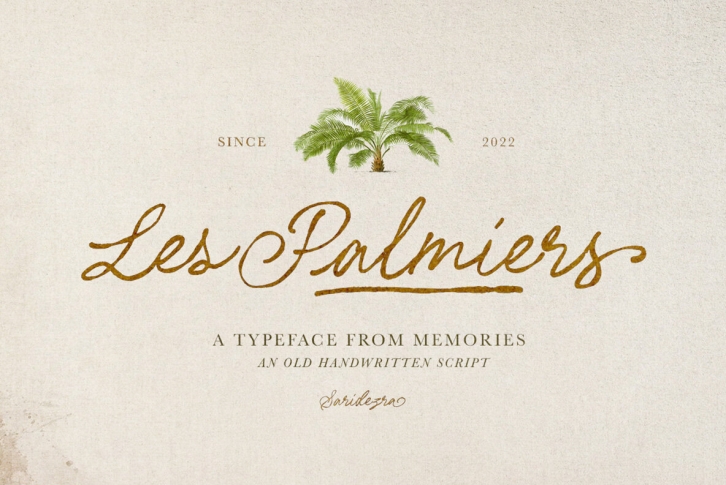
Les Palmiers is an old, vintage-looking font. It has alternate and swash characters which will help you create a more attractive project with its imperfect side! With multi language support as well, this typeface makes it easy for any designer looking to give their work that authentic feel.